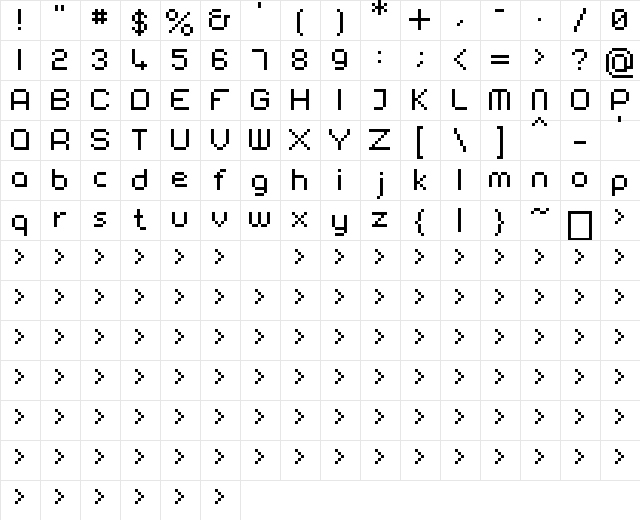
00Acrobatix Regular
Design Context for 00Acrobatix Typeface
00Acrobatix is a composed and adaptable typeface that performs quietly and consistently across a wide range of design contexts.